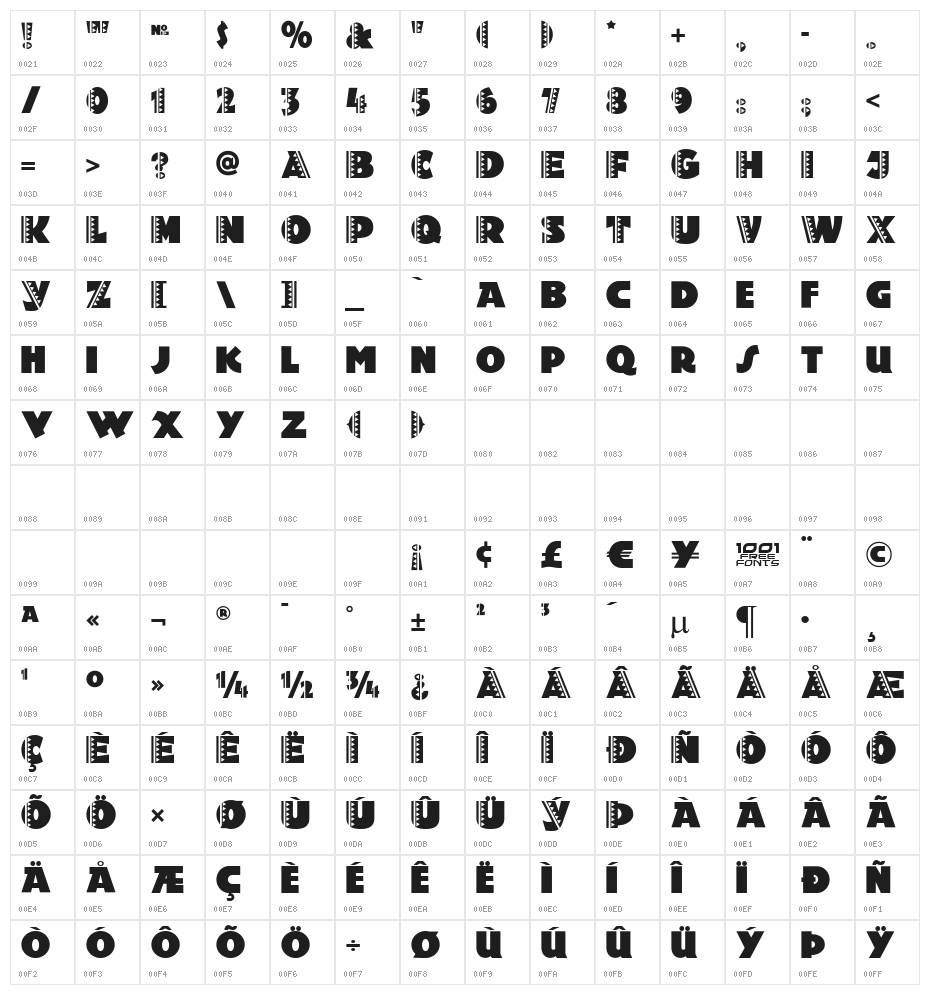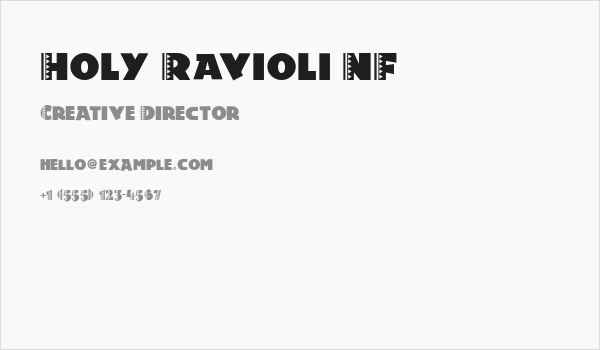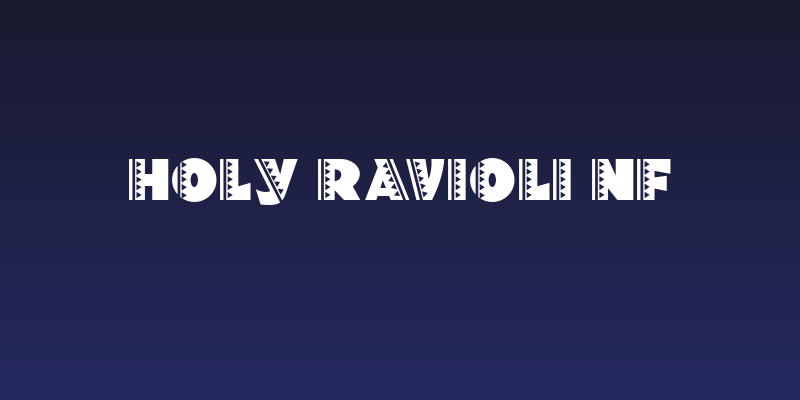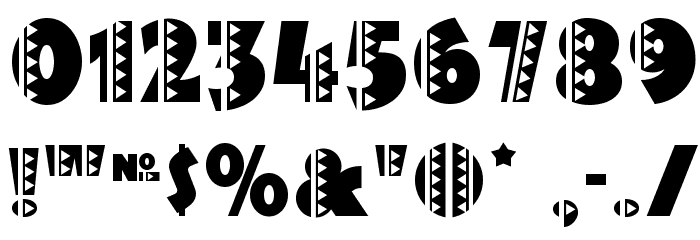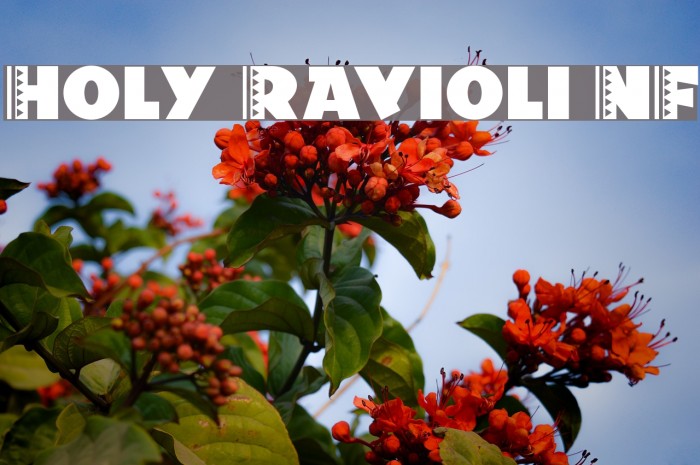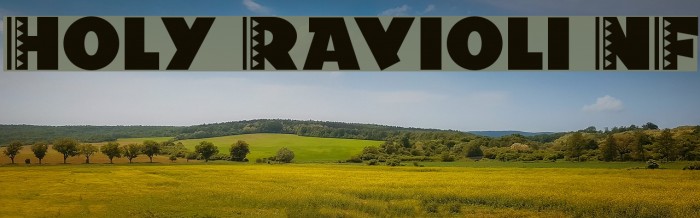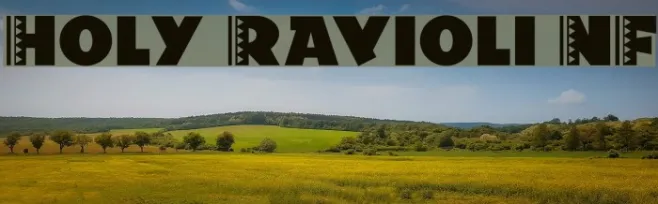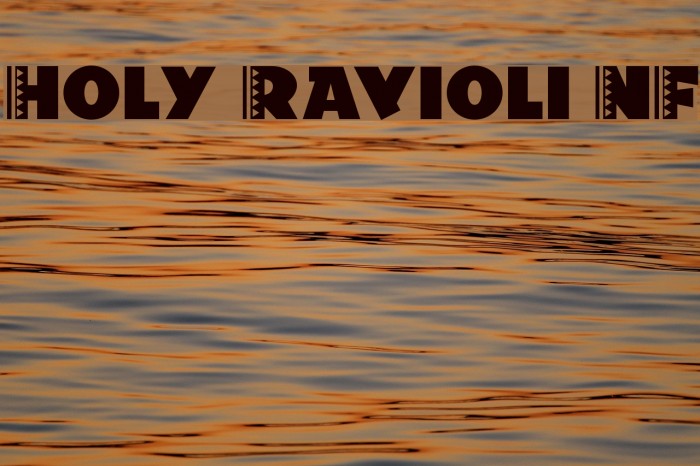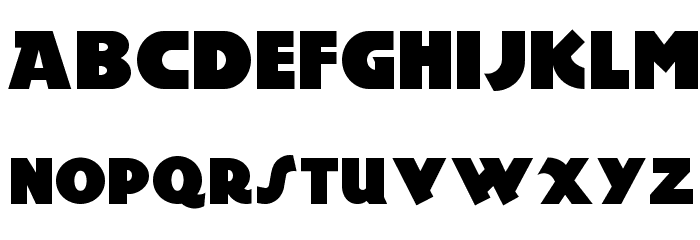
Holy Ravioli NF Font
Holy Ravioli NF Description
This is a bold and playful decorative font that features a unique tribal pattern within each character. The uppercase letters are designed with intricate geometric shapes, creating a vibrant and dynamic appearance. The lowercase letters maintain a cohesive style, offering a slightly more subdued yet still engaging look. The numbers and special characters follow the same decorative theme, ensuring consistency across all glyphs. This font's boldness and intricate design make it stand out, capturing attention with its artistic flair.